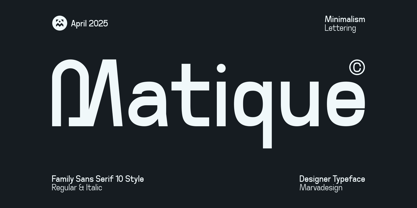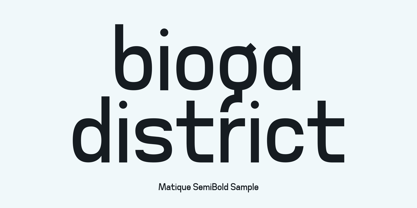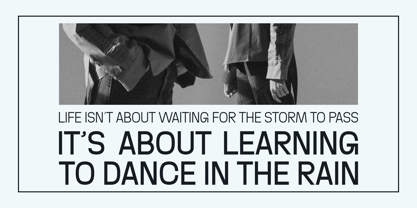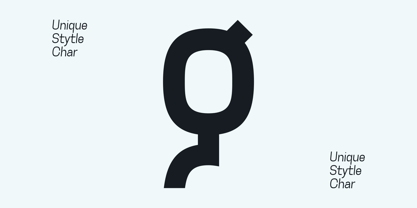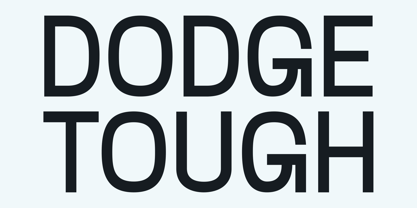
Matique
by Marvadesign
The Matique Font Family was designed by Febrie Setiawan and published by Marvadesign. Matique contains 10 styles and family package options.
Introducing New Family Sans Serif Font
Matique is a contemporary sans-serif typeface family designed with a minimalist aesthetic in mind. It features clean, geometric lines with subtle stylistic innovations, particularly noticeable in its lowercase characters and ligatures. The typeface includes a comprehensive set of ten styles, available in both Regular and Italic variants, making it a versatile choice for a wide range of design applications.
Its semi-bold weight demonstrates a balance between modern rigidity and organic form, contributing to both readability and character. Matique supports a full Latin character set along with essential symbols and punctuation, suitable for editorial design, branding, and digital interfaces.
Designers: Febrie Setiawan
Publisher: Marvadesign
Foundry: Marvadesign
Design Owner: Marvadesign